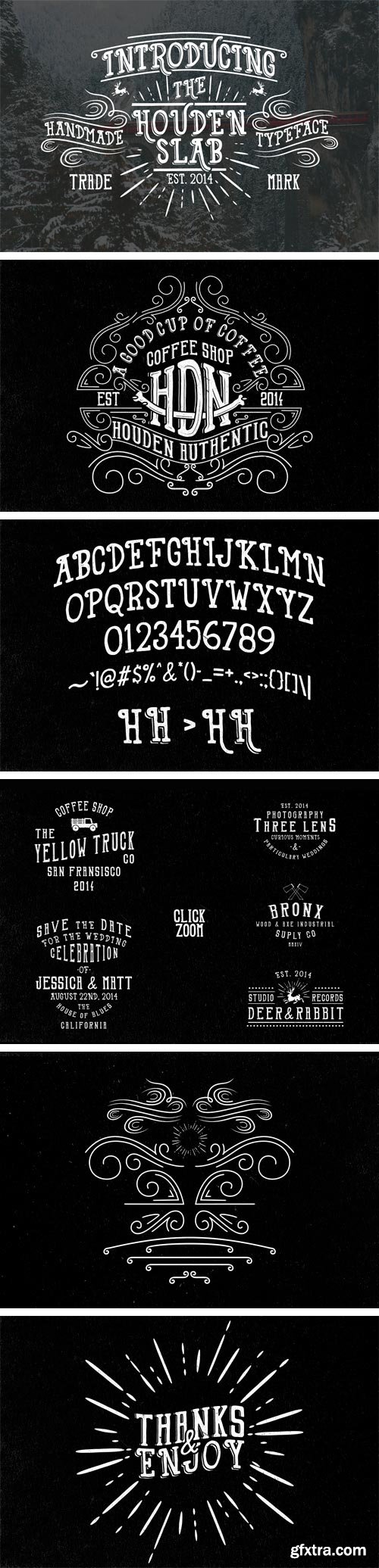
CM - Houden & HDN Typeface 94540
- Introducing Anggamahardika's first handmade typeface. He made two typefaces, and there are two versions for each typeface, it can make your work more cool and stylish. you can combine the two typeface and use some alternate characters. with this typeface you can create a vintage design, posters, logos, brand names, labels and etc.